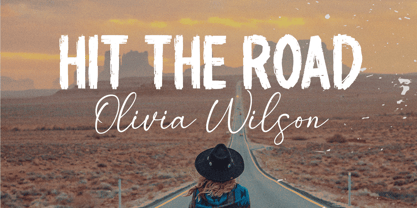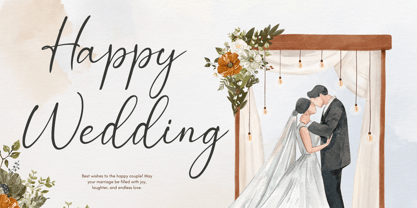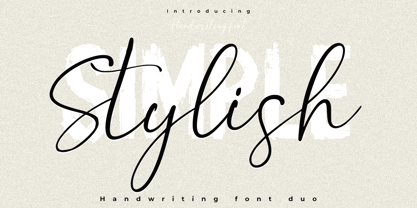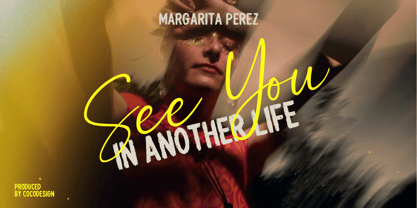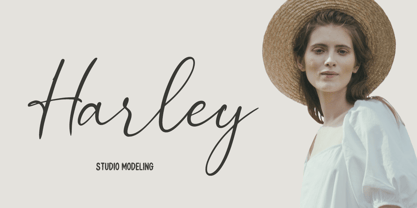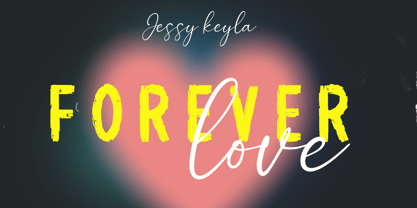
Simple Stylish
by Cocodesign
The Simple Stylish Font Family was designed by Muhammad Zaini and published by Cocodesign. Simple Stylish contains 2 styles and family package options. More about this family
Introducing Simple stylish font duo, an ingeniously crafted handmade brush font. Its design process honors authenticity, preserving the intriguing texture derived from its natural origins.